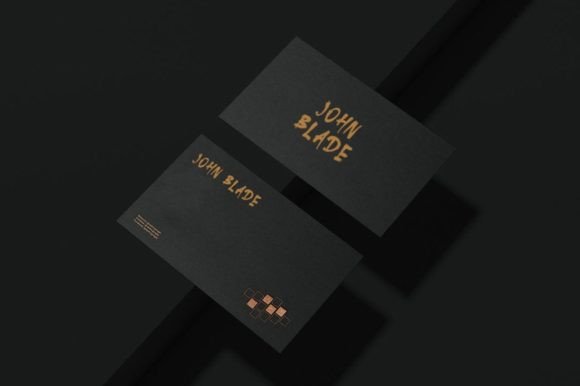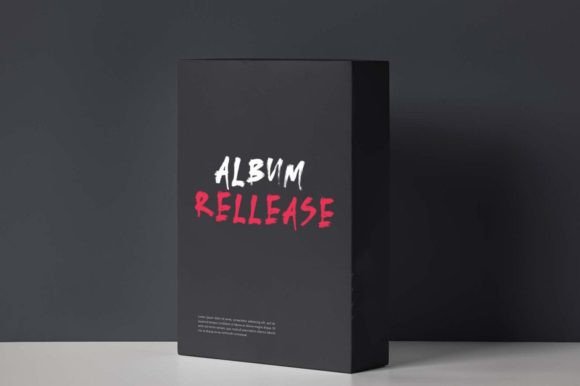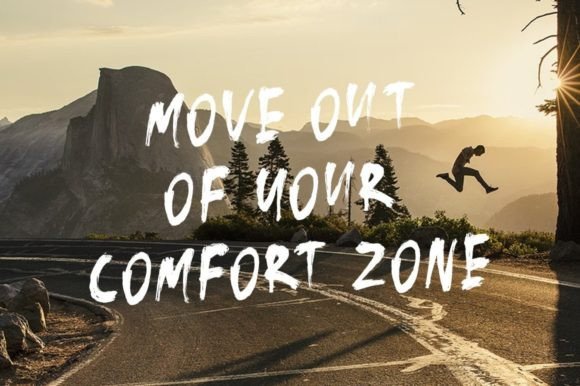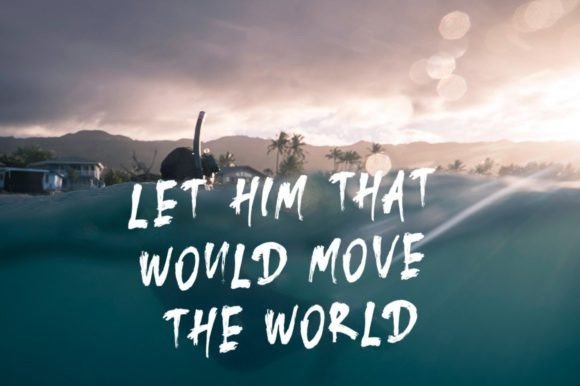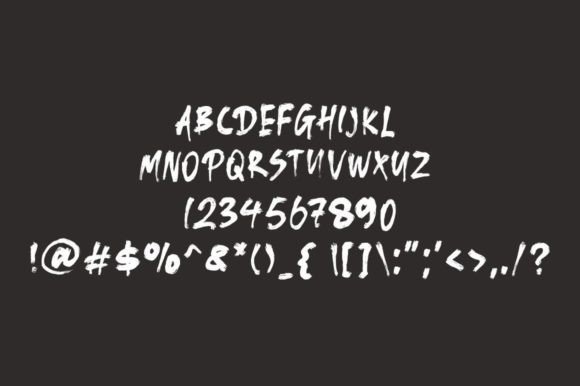
Introduction to Sijusto Font
Introducing Sijusto, a unique textured brush typeface with a bold and strong feel.
This display font is perfect for logos, and other various formal forms such as invitations, labels, magazines, books, greeting/wedding cards, packaging, make-up, stationery, novels, labels, or advertising .